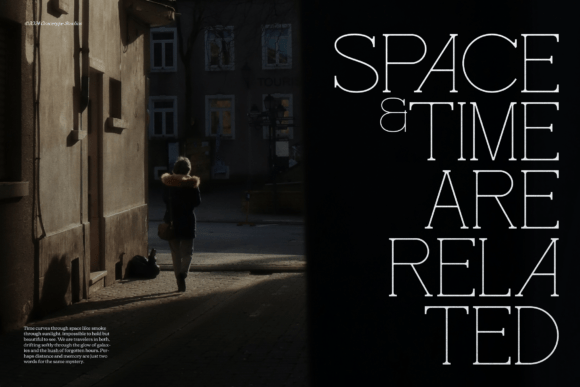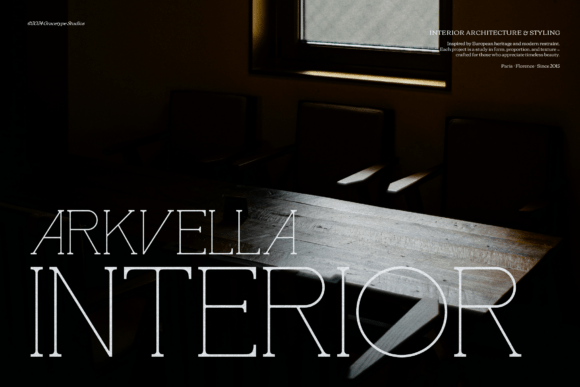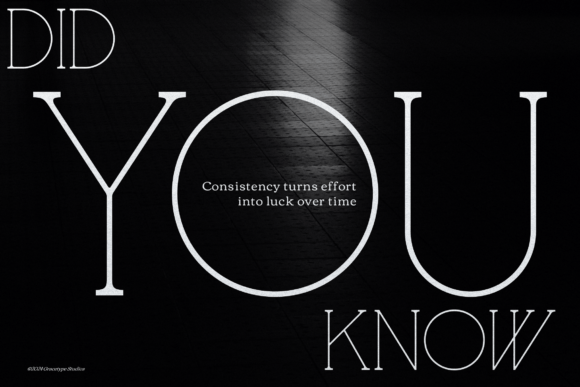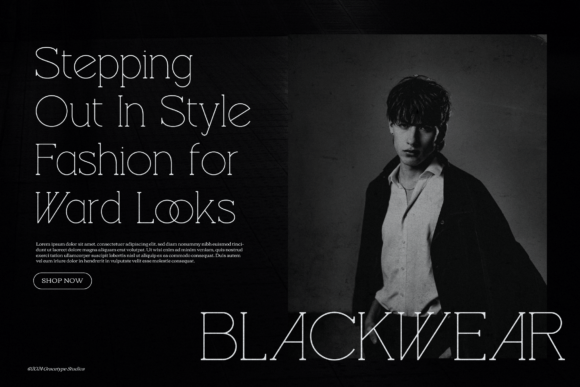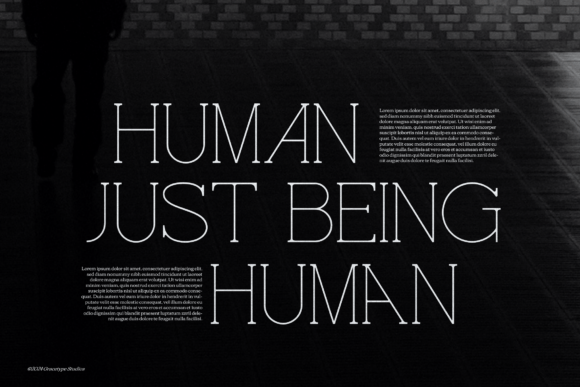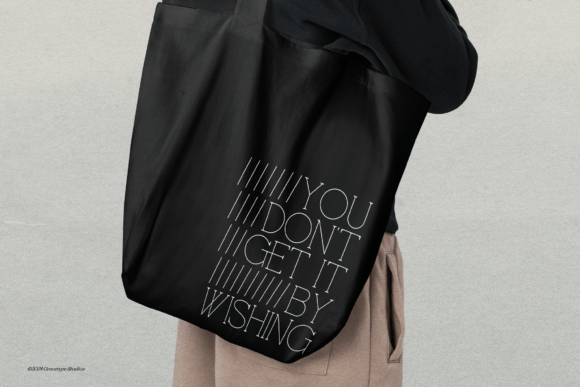
Introduction to Farway Journal Font
Elevate your branding with Farway Journal, a striking modern serif font characterized by its ultra-thin strokes, exceptionally tall stature, and sophisticated geometric construction that lends itself to high-fashion and editorial design.
This unique typeface features clean, commanding lines and a dramatic contrast between the sharp terminals and the vertical stress, giving it an unmistakable sense of minimalist luxury and refinement Farway Journal is built for impact in high-end environments, supporting over 200 glyphs, alternate characters, ligatures, and multilingual support for maximum creative flexibility.
Key Features of Farway Journal Font
Why Choose Farway Journal Font?